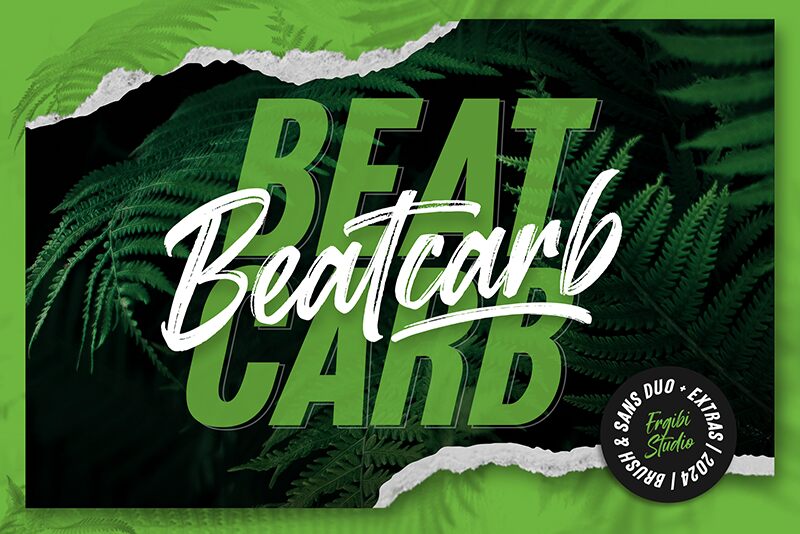
Beatcarb
Beatcarb font by Riyadh Rahman is a playful brush font whose lively letters are full of energy and excitement. The condensed width it comes with allows for the strength in texts without taking up much space. Beatcarb’s style is both expressive and artistic, making it an excellent choice for projects where a striking visual impact is needed.
Make use of this free brush font in your headers, logotypes, packaging designs, branding ideas, social media posts, printouts like brochures and flyers, book covers; especially those of children; t-shirt designs, badges’ designs; headlines that need some enhancement and typography prints.